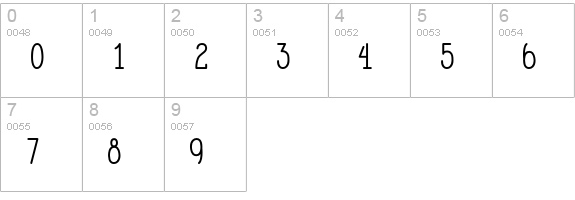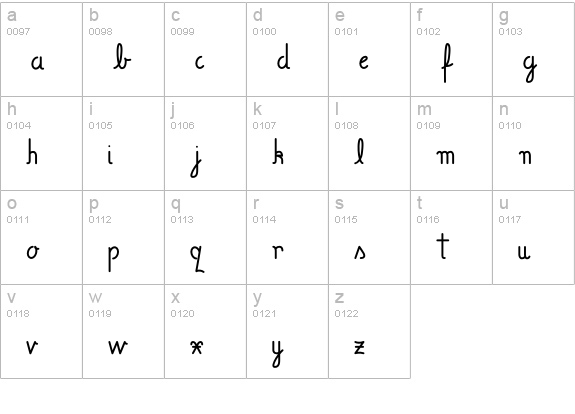
RoloTT Regular is the standard, neutral variant in the RoloTT typeface family \xE2\x80\x94 well suited to general body text, paragraphs, and standard typographic work.
RoloTT Regular is a versatile and modern font that combines sleek lines with a touch of playfulness. Perfect for a wide range of design projects, from branding to social media graphics, this font exudes a sense of contemporary sophistication. With its clean and legible letterforms, RoloTT Regular adds a stylish flair to any project while maintaining readability. And the best part? RoloTT Regular is available for free download at FontsMarket.com! Yes, you read that right - this high-quality font can be yours at no cost. Don't miss out on the opportunity to enhance your designs with the sleek and stylish RoloTT Regular font. Download it today and elevate your projects to the next level!